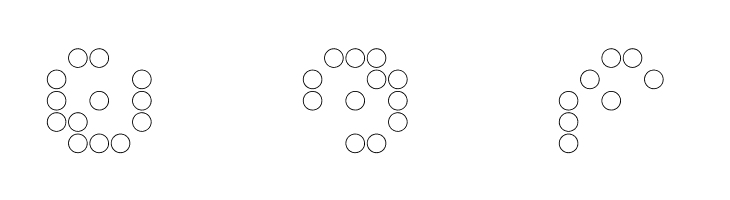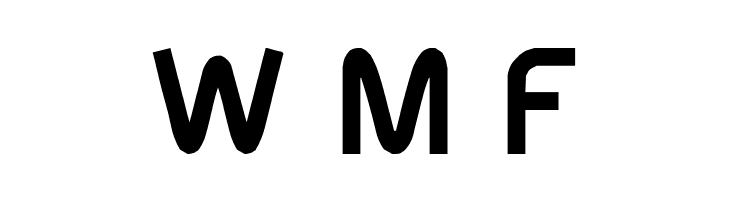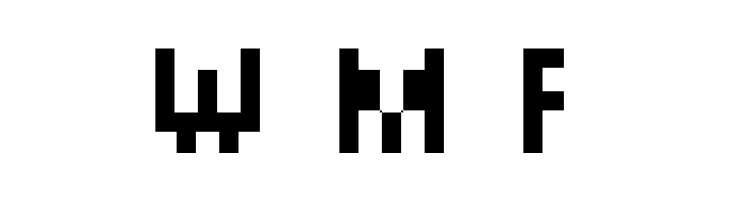
A decorative font with characters formed by interconnected circles, offering a playful and modern look.
A futuristic, geometric font with bold, angular letterforms and consistent stroke width.
A pixelated, retro-style font with a blocky, digital appearance.
A bold, geometric font with a futuristic and edgy design.
A bold, geometric font with a futuristic and modern design.
A bold, futuristic font with geometric shapes and a modern aesthetic.
A bold, geometric font with sharp angles and dynamic cutouts.